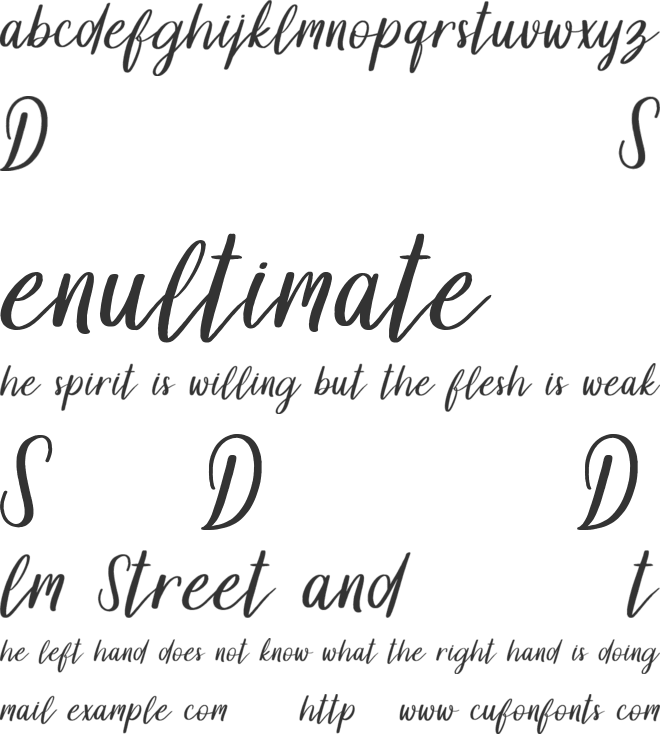
Dollyn Script DEMO Font
Introducing Dollyn Script, a casual handwriting versatile script font with undoubtedly vintage vibes. Support multilanguages (check the display) and there's a ligatures feature for double letters to get the seamless handwriting feels on your design project.